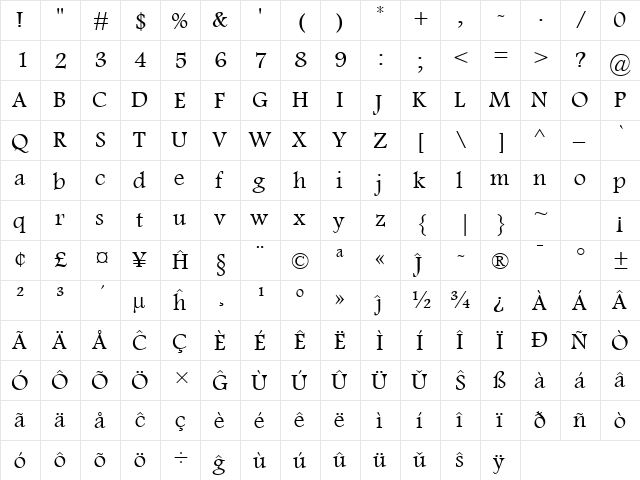
Footlight MT Light Eo Regular
Design Context for Footlight MT Light Eo Typeface
Footlight MT Light Eo offers clean, dependable letterforms without strong stylistic allegiance, making it a practical choice for designers who need flexibility. The delicate stroke weight brings airiness and refinement to layouts.